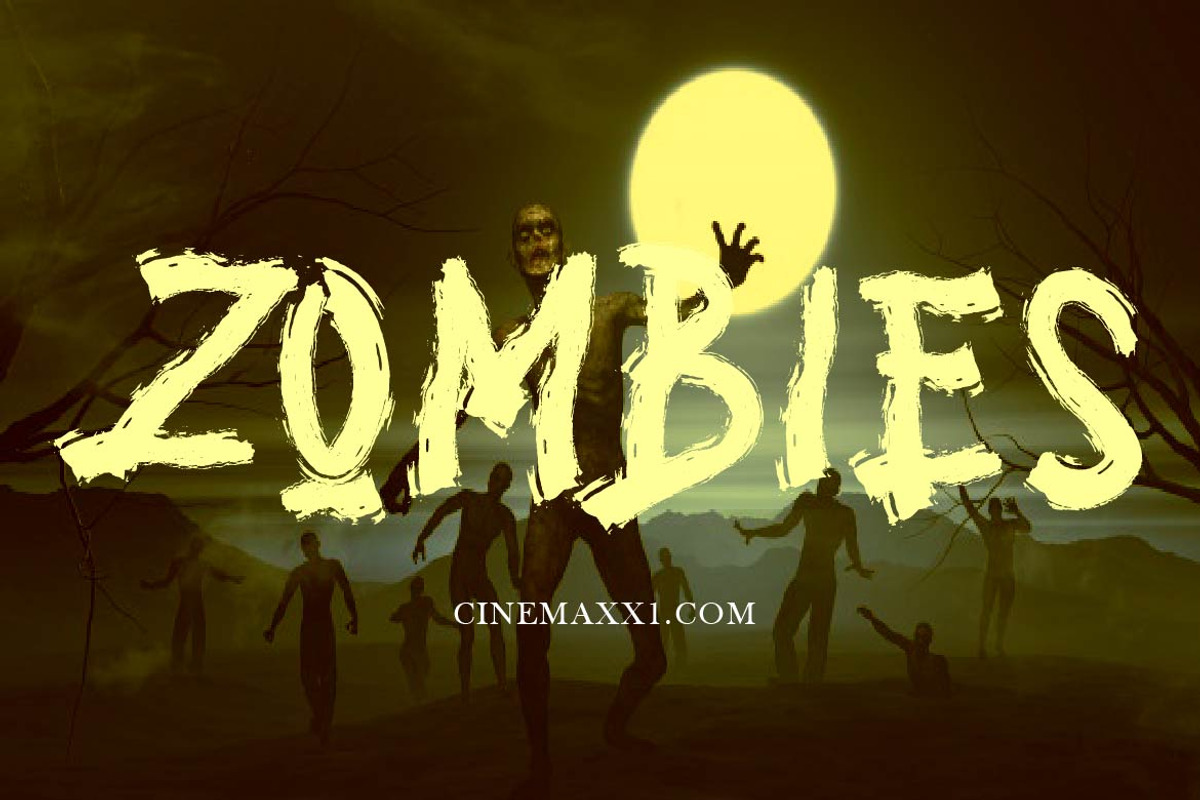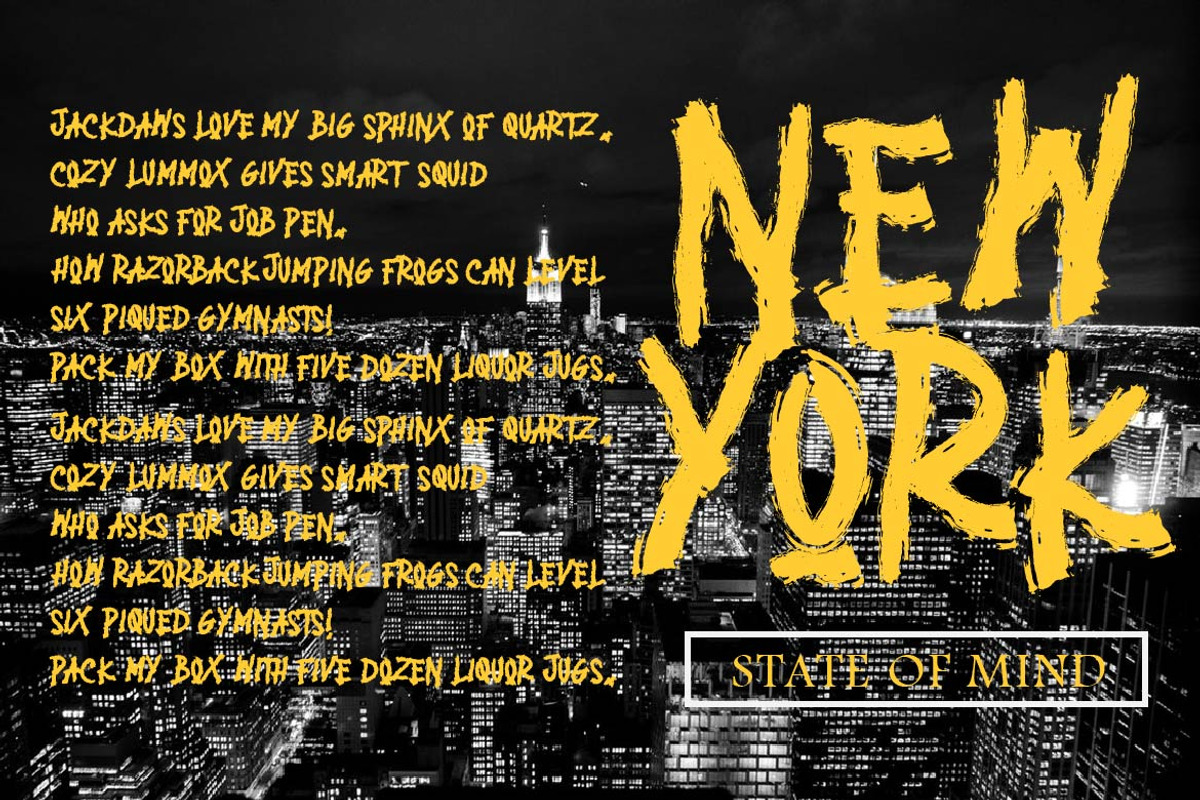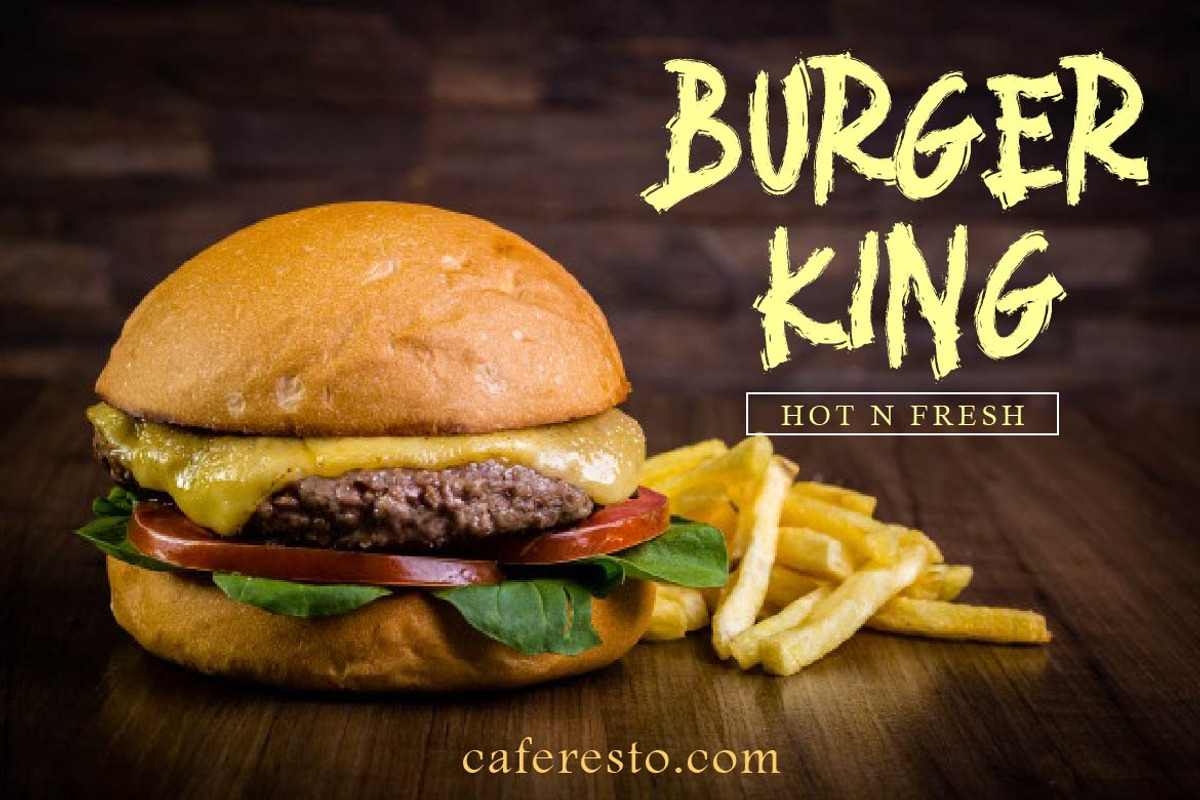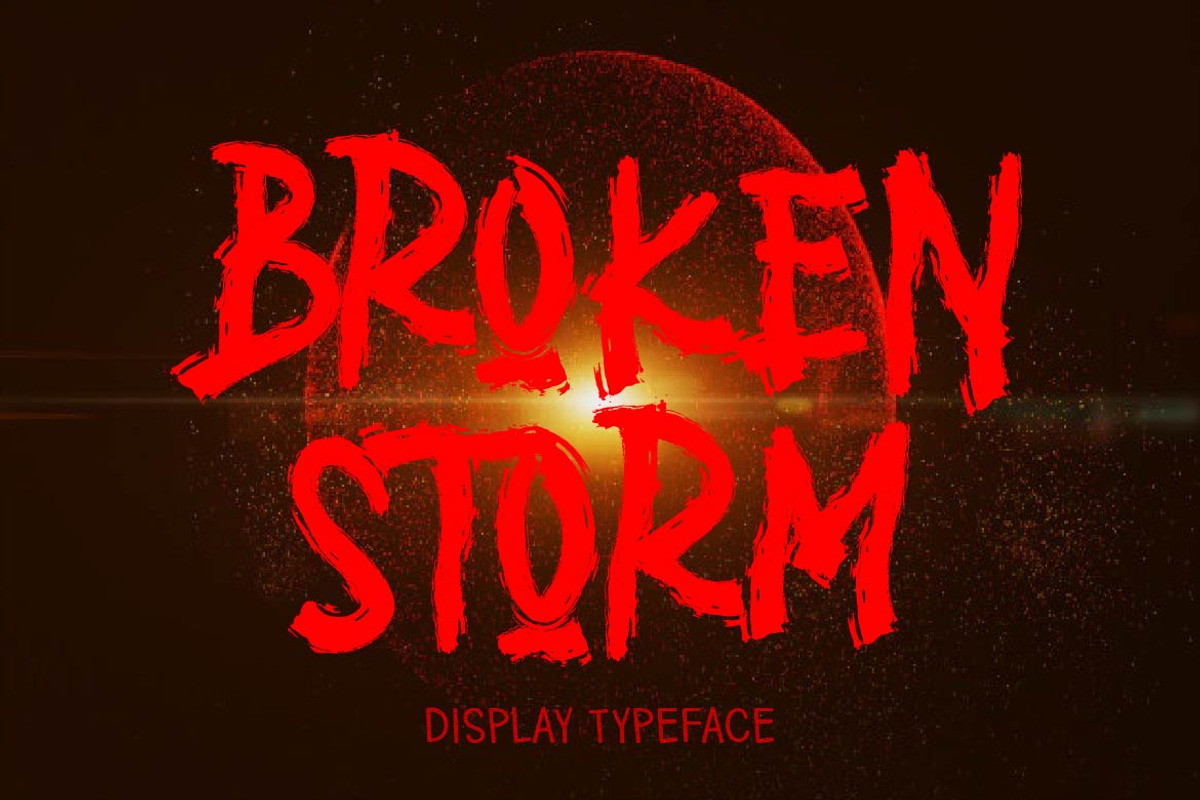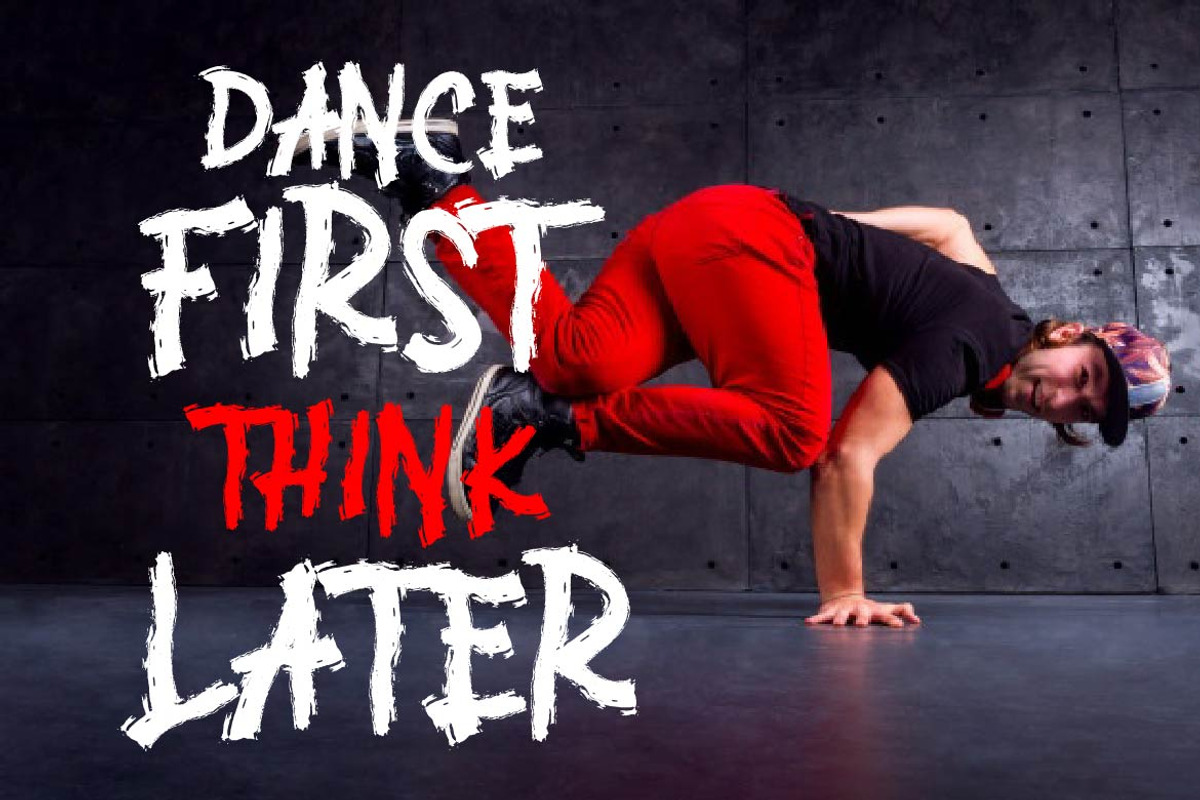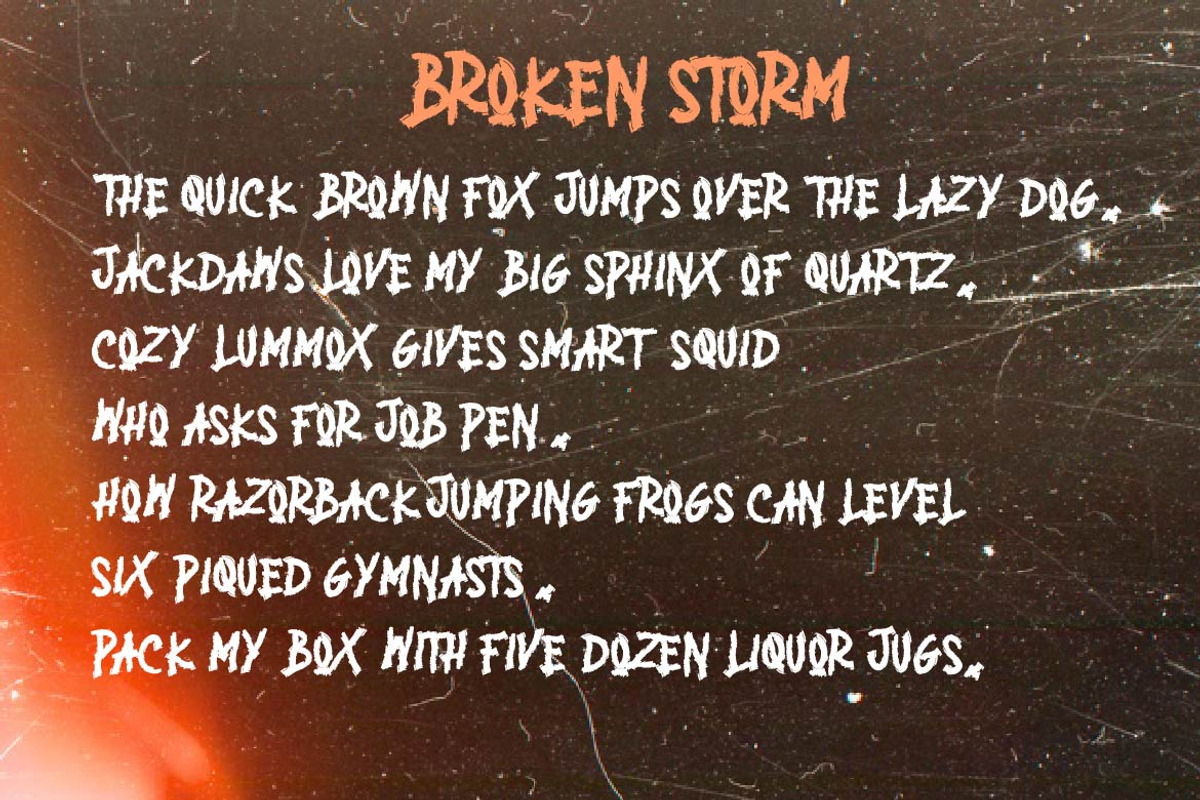
BROKEN STORM
This is a supercharged font, with natural brush, quick strokes and sharp details. Contains ALL CAPS, numbers, some punctuation and ligature. Perfect for challenging jobs, titles, movie,logos, apparel, t-shirts, hoodies, quotes, product packaging, or anything that needs a typographic turbo-boost and a typographic unique style.